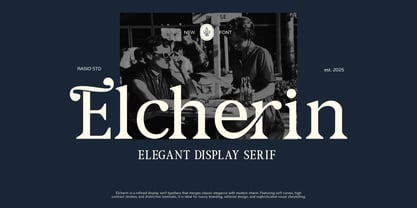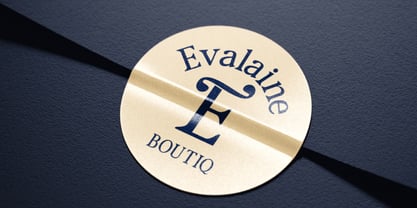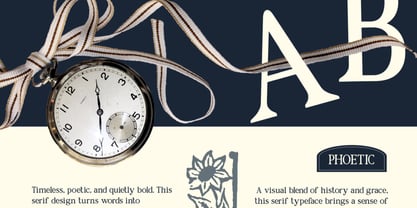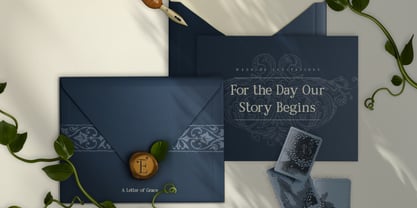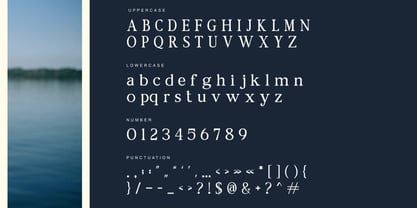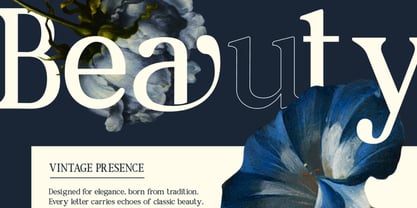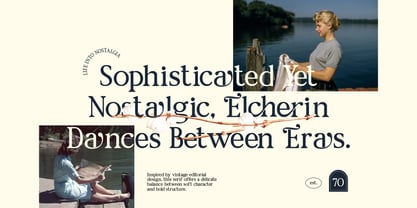
Elcherin
by Rasio Studio
The Elcherin Font Family was designed by Fajar Indra and published by Rasio Studio. Elcherin contains 1 styles. More about this family
Elcherin is a refined display serif typeface that merges classic sophistication with modern charm. Featuring soft curves, elegant contrast strokes, and distinctive terminals, Elcherin evokes timeless luxury and editorial beauty. Designed to elevate high-end projects, it blends vintage flair with a fresh contemporary rhythm. With uppercase, lowercase, numerals, and punctuation, Elcherin is ideal for luxury branding, magazine titles, wedding invitations, and fashion headlines. Every detail captures grace and refinement, making it a perfect choice for sophisticated visual storytelling.
Designers: Fajar Indra
Foundry: Rasio Studio